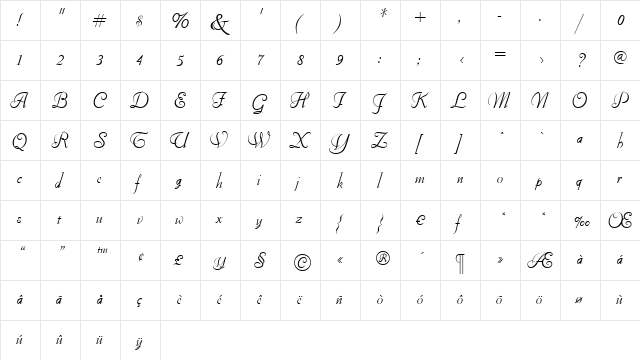
Florentine Cursive Regular
Design Context for Florentine Cursive Typeface
Florentine Cursive flows with the natural rhythm of handwritten lettering, making it ideal for designs that call for warmth and personal expression.
Font Pairing: Combine Florentine Cursive with a simple geometric sans for maximum contrast — the tension between flowing curves and clean structure is a classic typographic pairing.
Pro Tip: Pair Florentine Cursive with a clean sans-serif for supporting text. The contrast between fluid script and geometric structure creates an elegant typographic hierarchy.